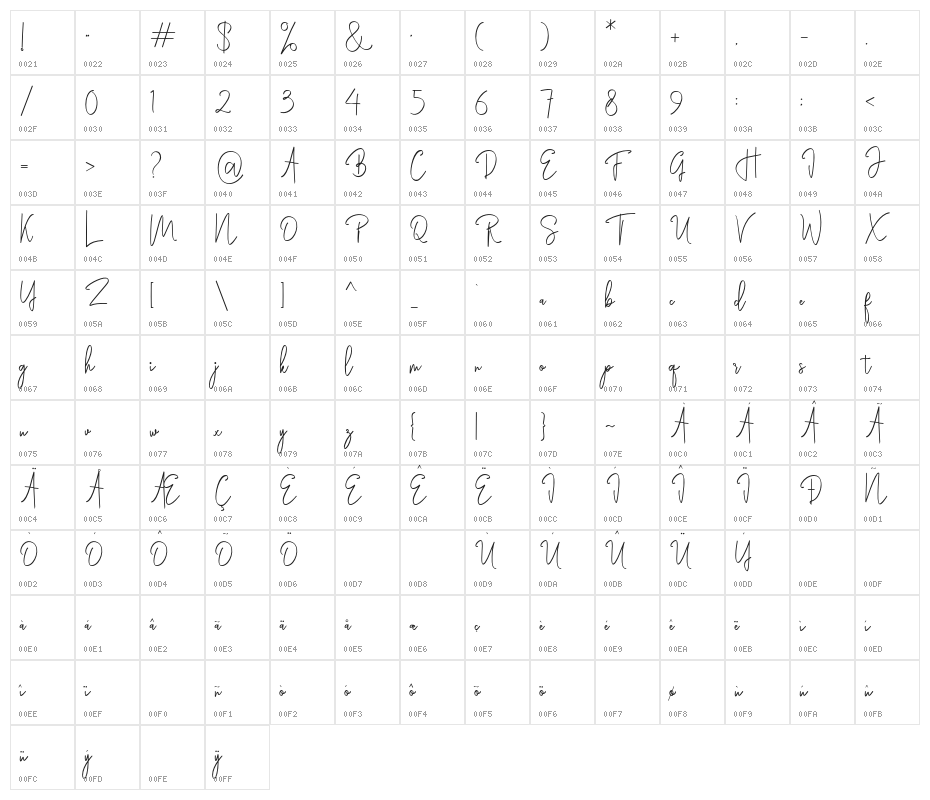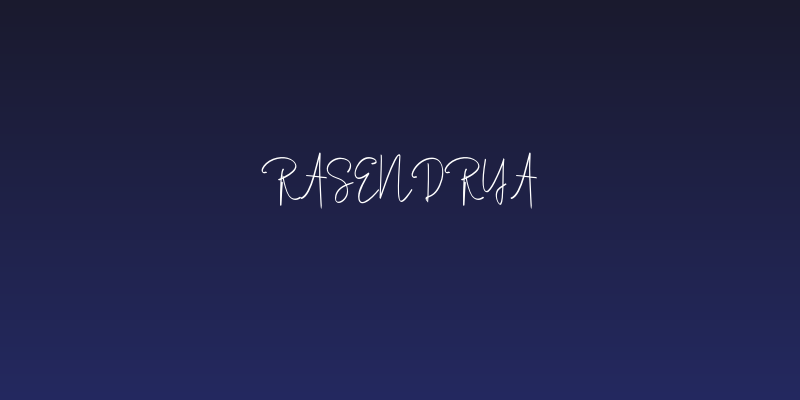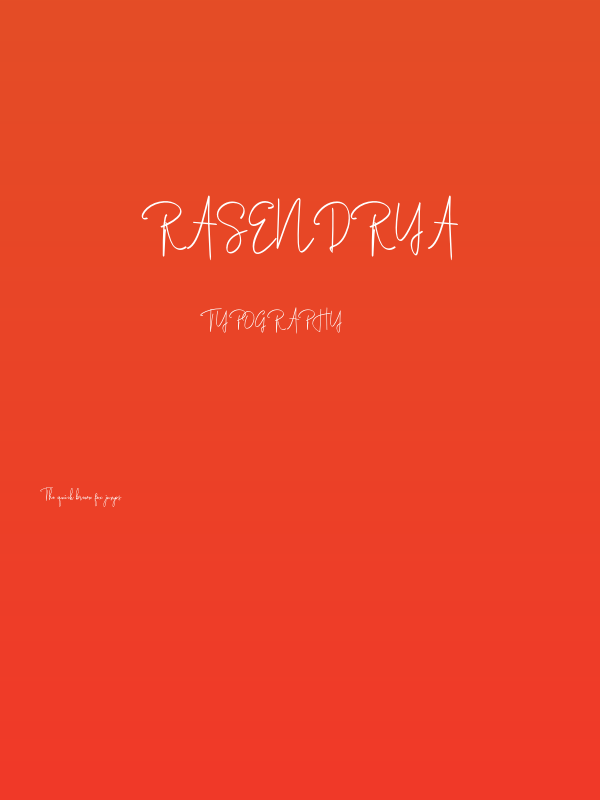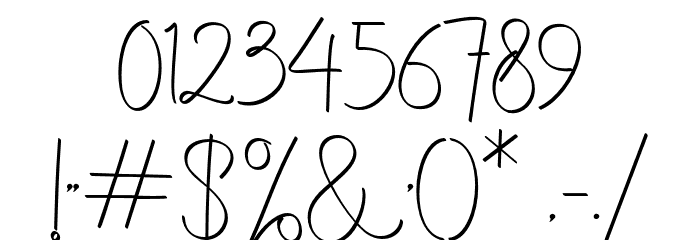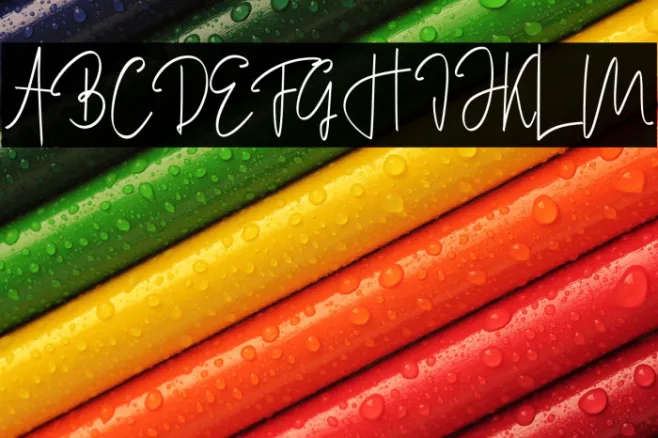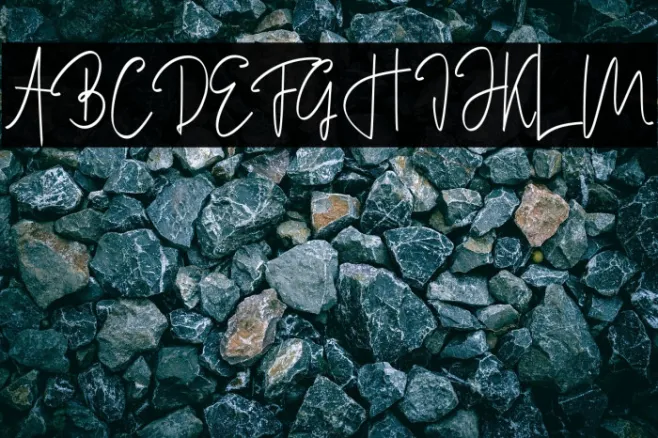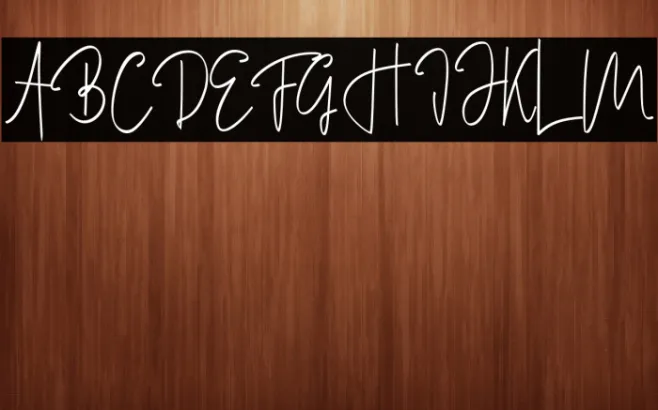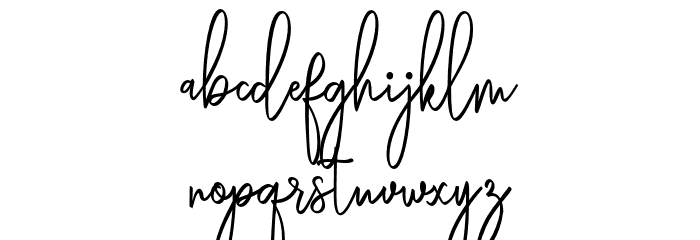
Rasendrya Font
Rasendrya Description
This font features a distinctive handwritten style with a playful and elegant flair. The uppercase letters are tall and slightly narrow, with a whimsical touch that adds character. The lowercase letters maintain a smooth, flowing script that complements the uppercase, creating a cohesive look. Numbers and special characters are crafted with the same attention to detail, ensuring consistency across all elements. The font's thin strokes and slight variations in line thickness give it a dynamic and lively appearance, making it suitable for creative and expressive projects.
| Use Case | Logos, Invitations, Creative projects |
| Proposed Projects | Ideal for wedding invitations, greeting cards, personal branding, and creative projects that require a touch of elegance and personality. |